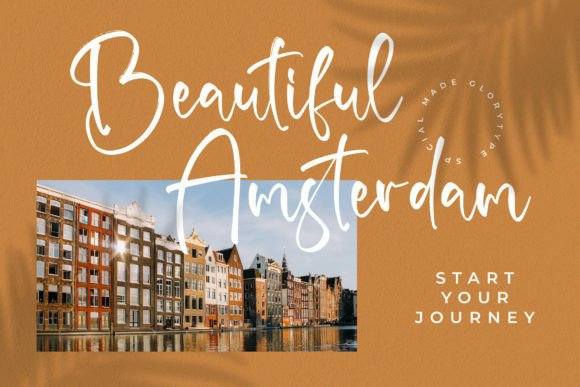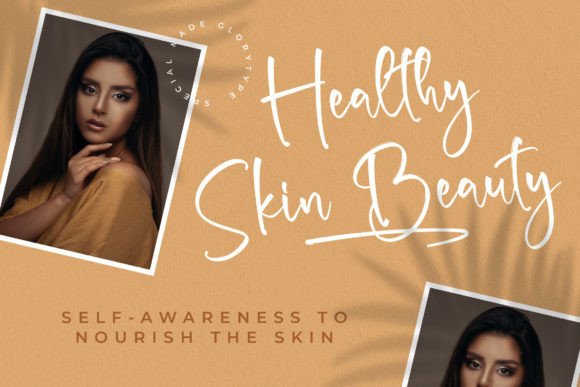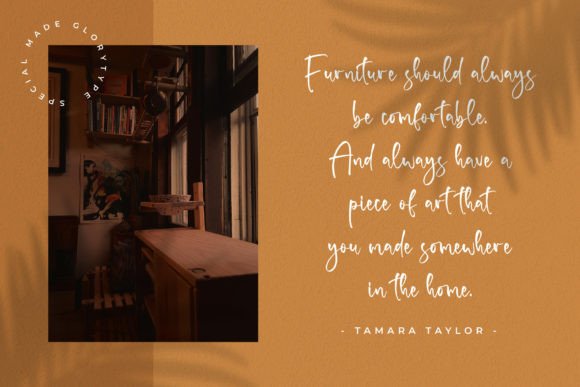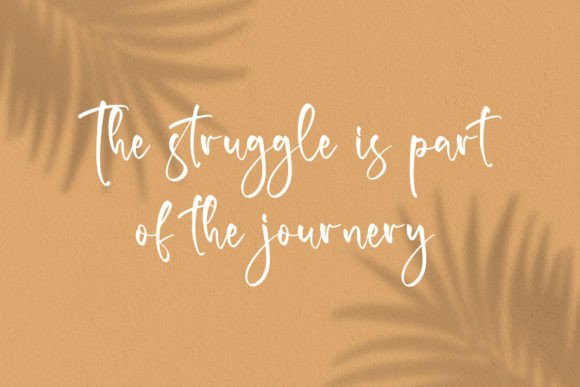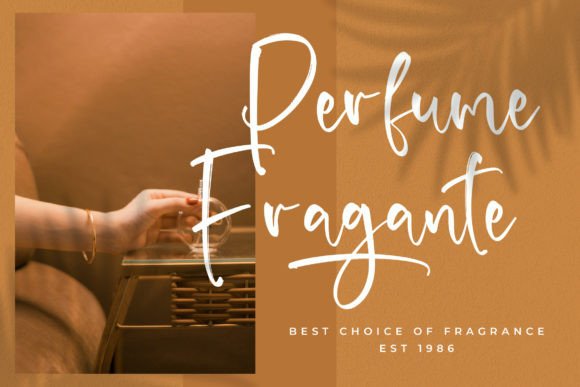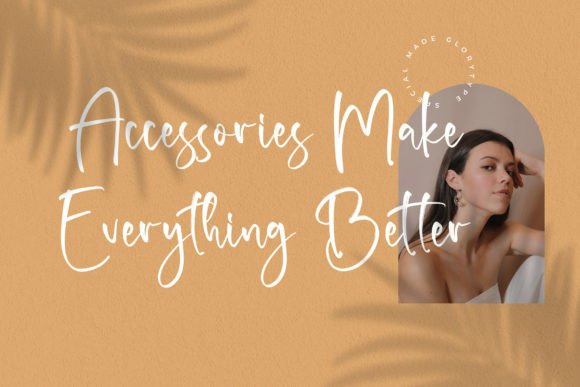
Fletchers Font: Elevate Your Designs with a Handwritten Brush Script
Are you looking for a font that adds a personal touch to your designs? Look no further than Fletchers, a beautiful handwritten brush font perfect for a wide range of projects. From logos and branding to homeware designs, product packaging, and more, Fletchers brings a unique and elegant script style to your creations.
What is Fletchers Font?
Fletchers is a carefully crafted handwritten brush font, designed to bring a touch of sophistication and elegance to your designs. Its unique brush script style makes it perfect for projects that require a personal and creative approach. With Fletchers, you can add a human touch to your designs, making them stand out from the crowd.
What Can I Use Fletchers Font For?
The versatility of Fletchers font makes it suitable for a wide range of projects, including:
- Logos and branding projects: Create a lasting impression with a unique and memorable logo.
- Homeware designs: Add a touch of elegance to your home decor with Fletchers font.
- Product packaging: Make your products stand out on store shelves with beautiful and eye-catching packaging.
- Mugs, quotes, posters, shopping bags, t-shirts, and more: Fletchers font is perfect for any project that requires a personal touch.
- Book covers, name cards, invitation cards, greeting cards, and labels: Add a touch of sophistication to your stationery and book designs.
- Photography and watermark: Use Fletchers font to add a professional touch to your photos.
- Special events: Create beautiful and memorable designs for weddings, birthdays, and other special occasions.
Why Choose Fletchers Font?
There are many reasons why Fletchers font stands out from the rest:
- Unique and elegant script style: Fletchers font brings a touch of sophistication to your designs.
- Handwritten brush style: Adds a personal and human touch to your designs.
- Versatile: Suitable for a wide range of projects, from logos to homeware designs.
Tips for Using Fletchers Font
Here are some tips for getting the most out of Fletchers font:
- Experiment with different sizes and colors: Fletchers font looks great in a variety of sizes and colors.
- Pair with other fonts: Try pairing Fletchers font with other fonts to create a unique and interesting design.
- Use for headlines and titles: Fletchers font is perfect for headlines and titles, adding a touch of elegance to your designs.
- Don’t be afraid to get creative: Fletchers font is a versatile font that can be used in a wide range of projects.
Fletchers font is a beautiful and versatile handwritten brush font perfect for designers and crafters. With its unique and elegant script style, Fletchers brings a touch of sophistication to your designs. Whether you’re working on a logo, branding project, homeware design, or any other project, Fletchers font is sure to impress.